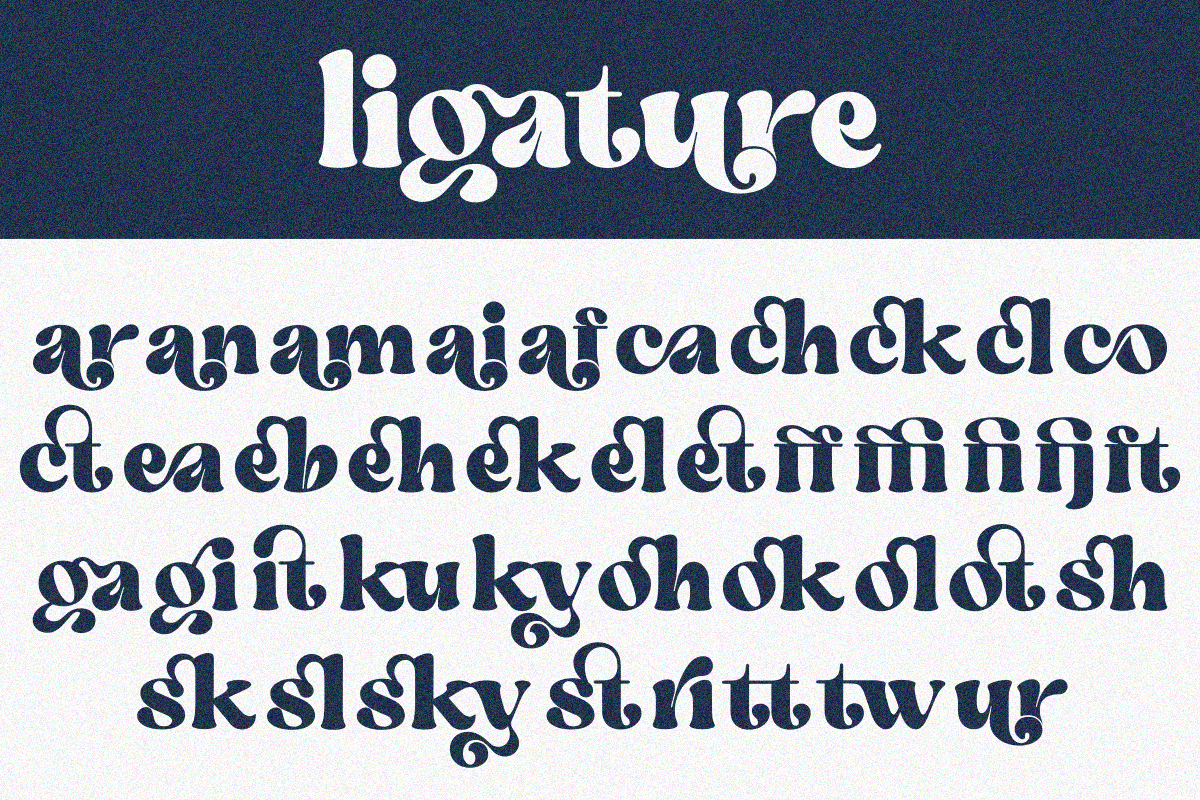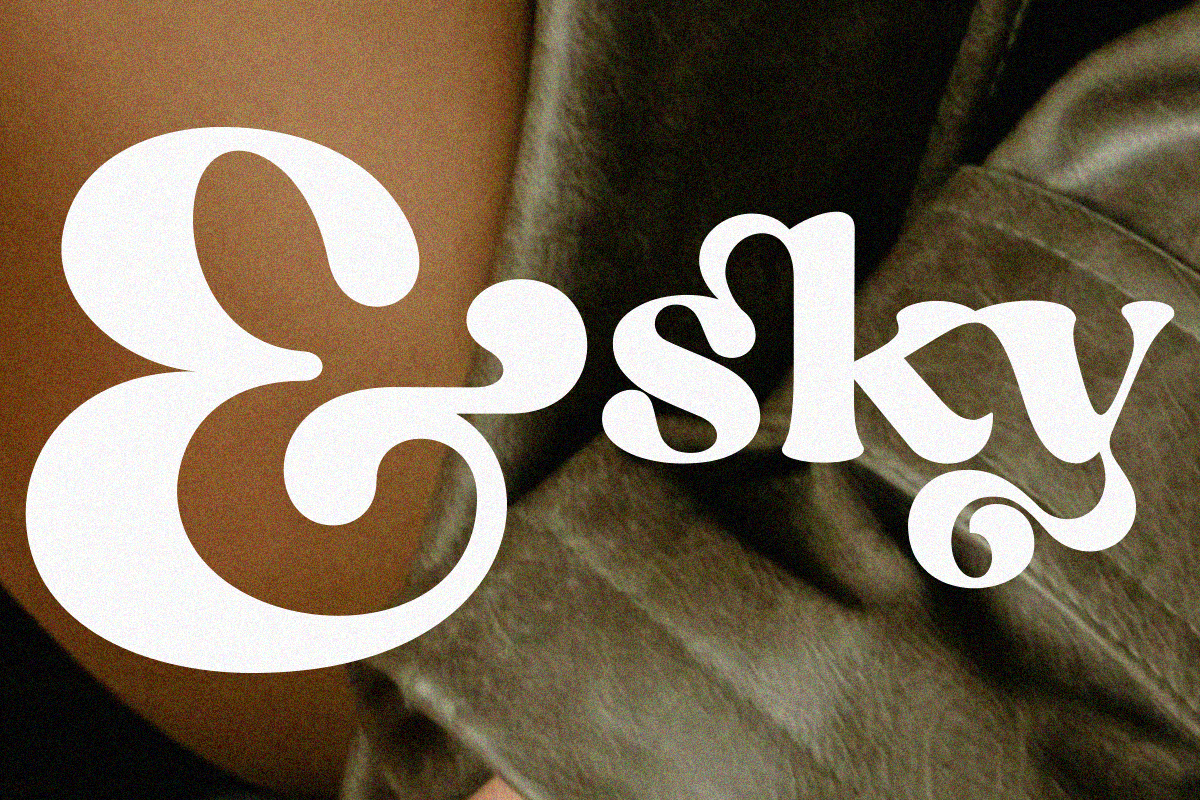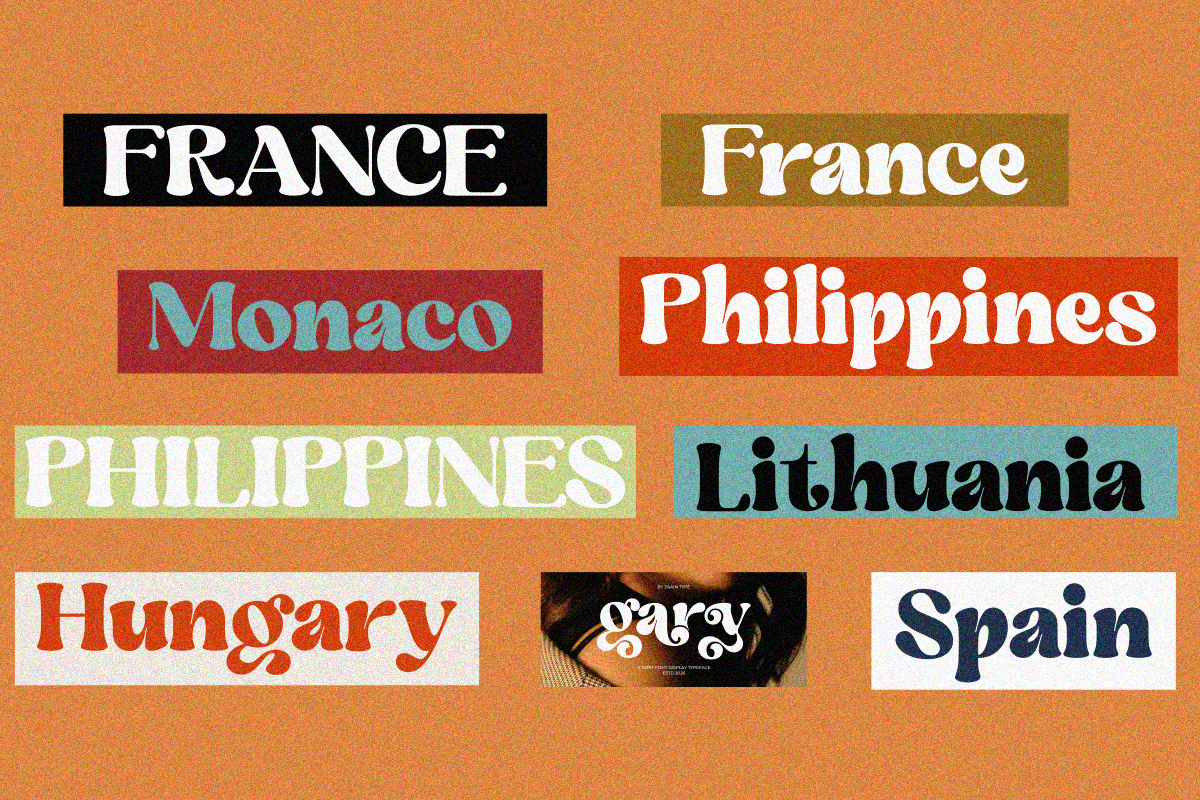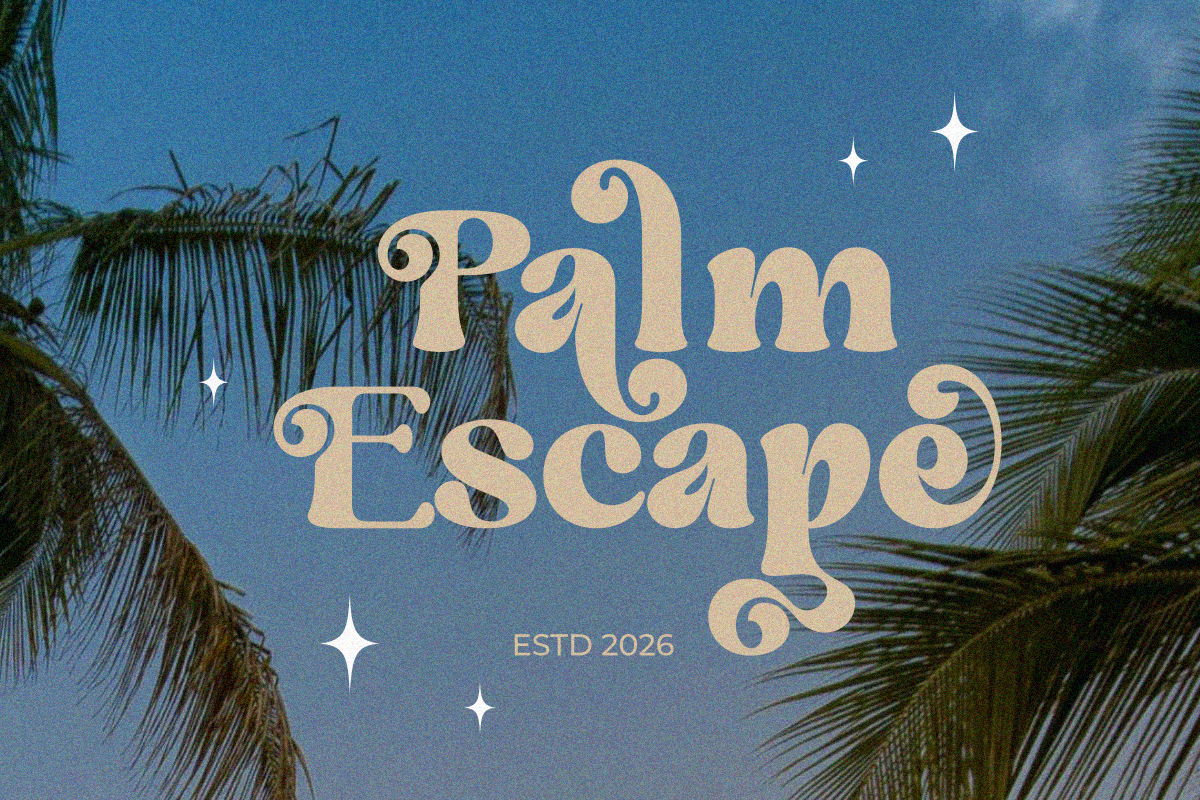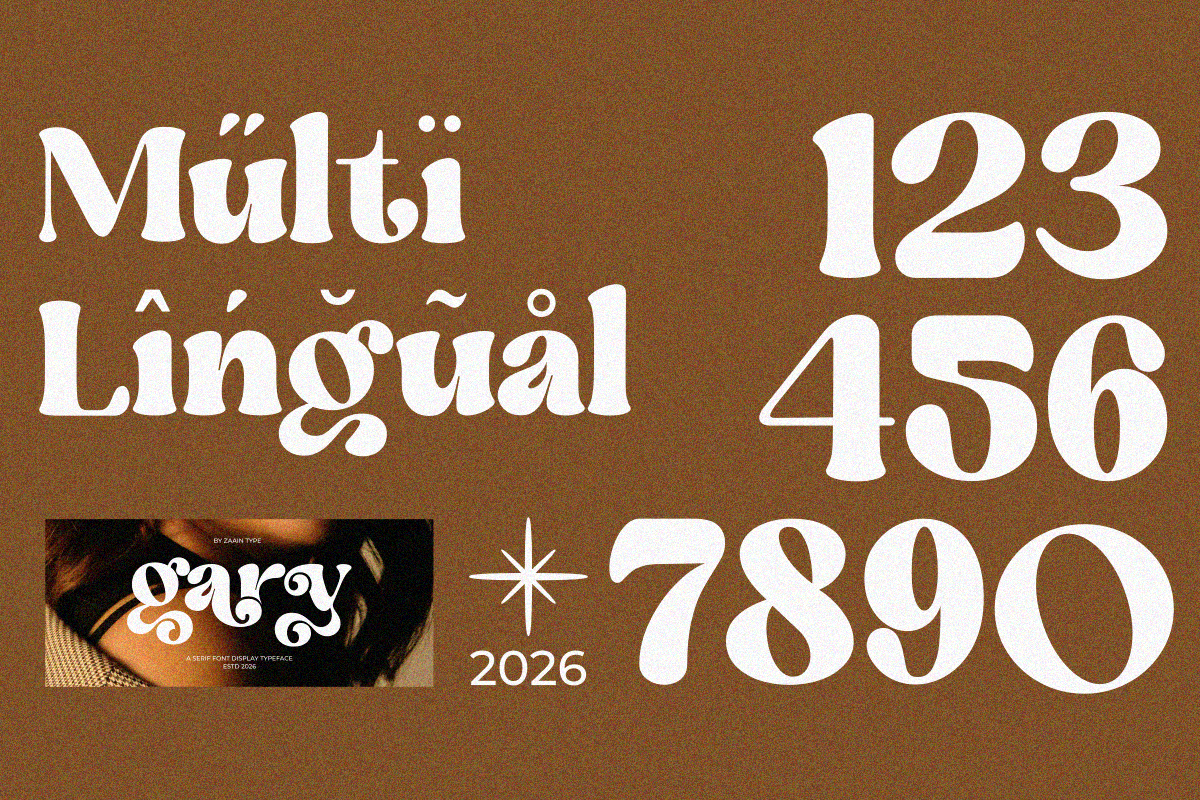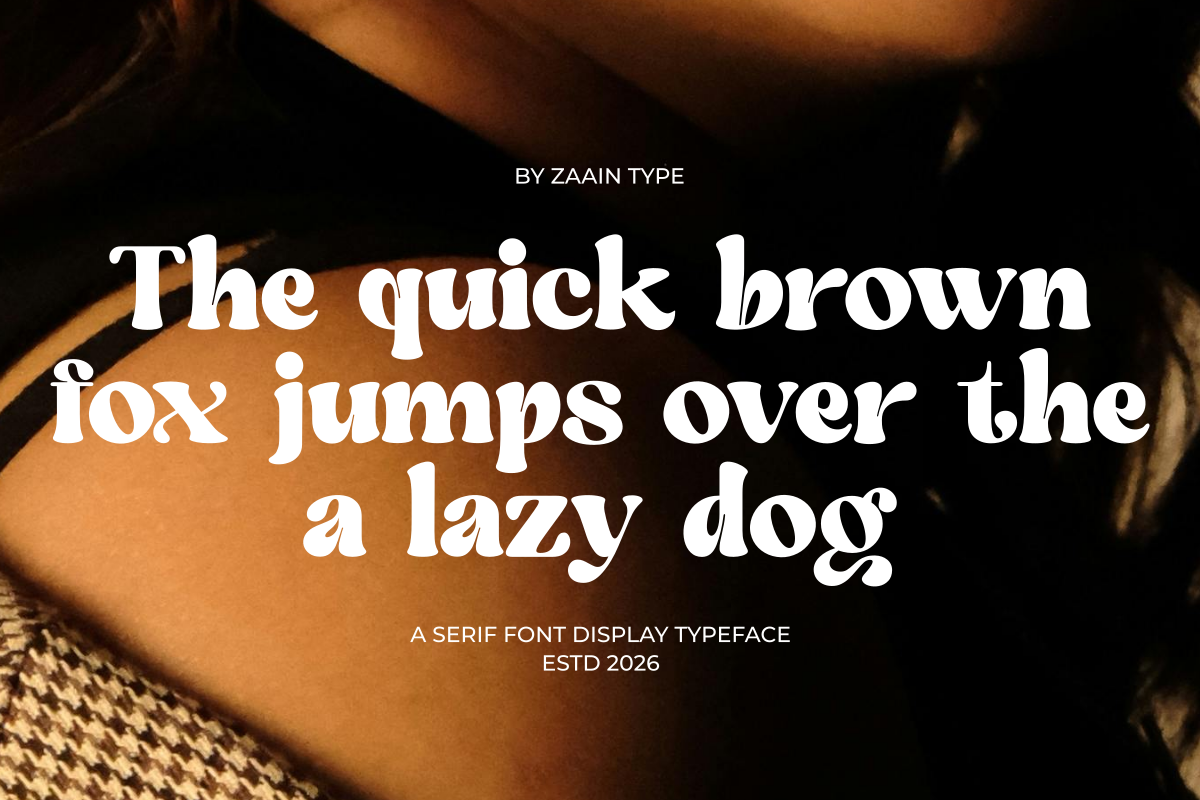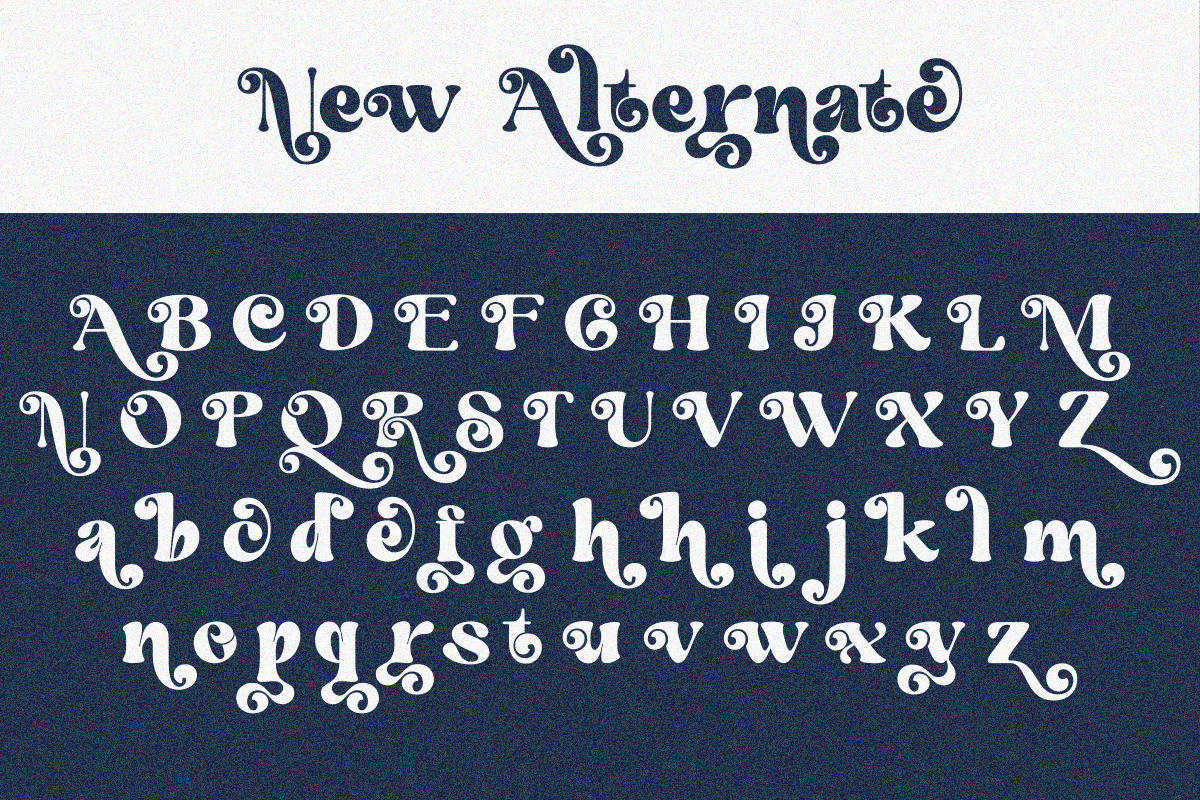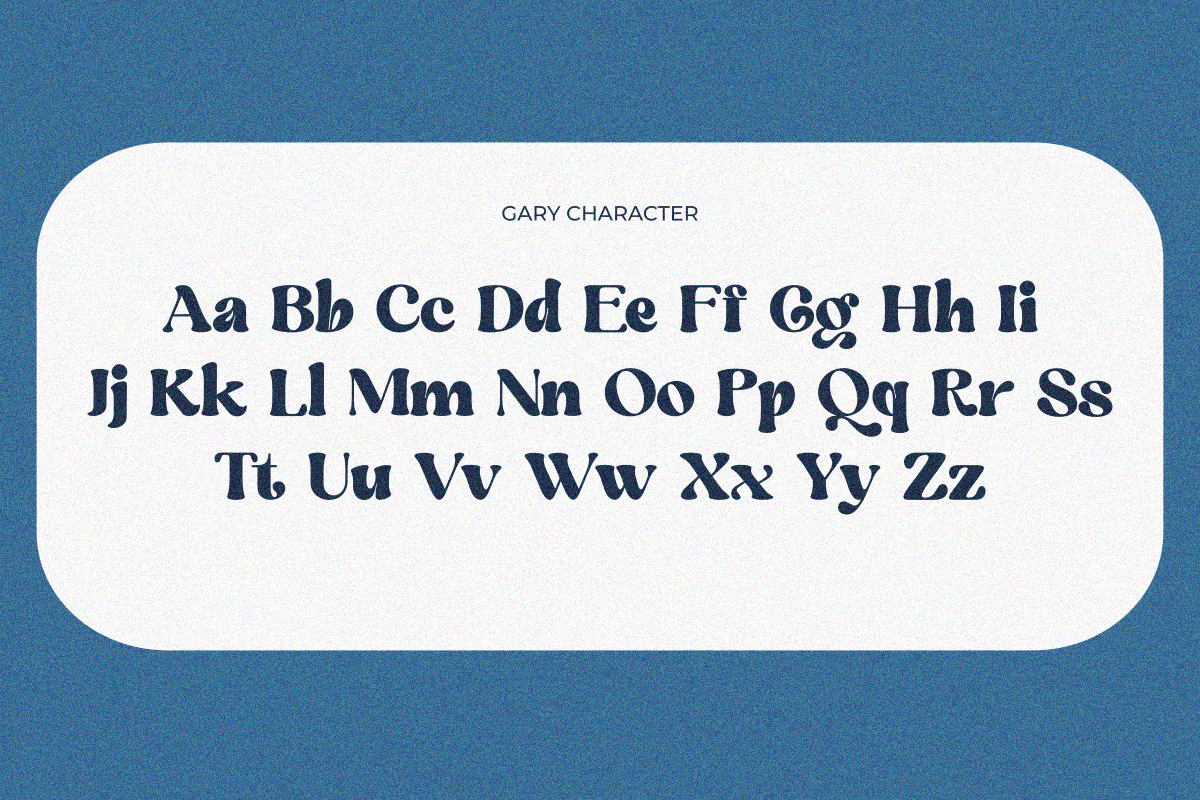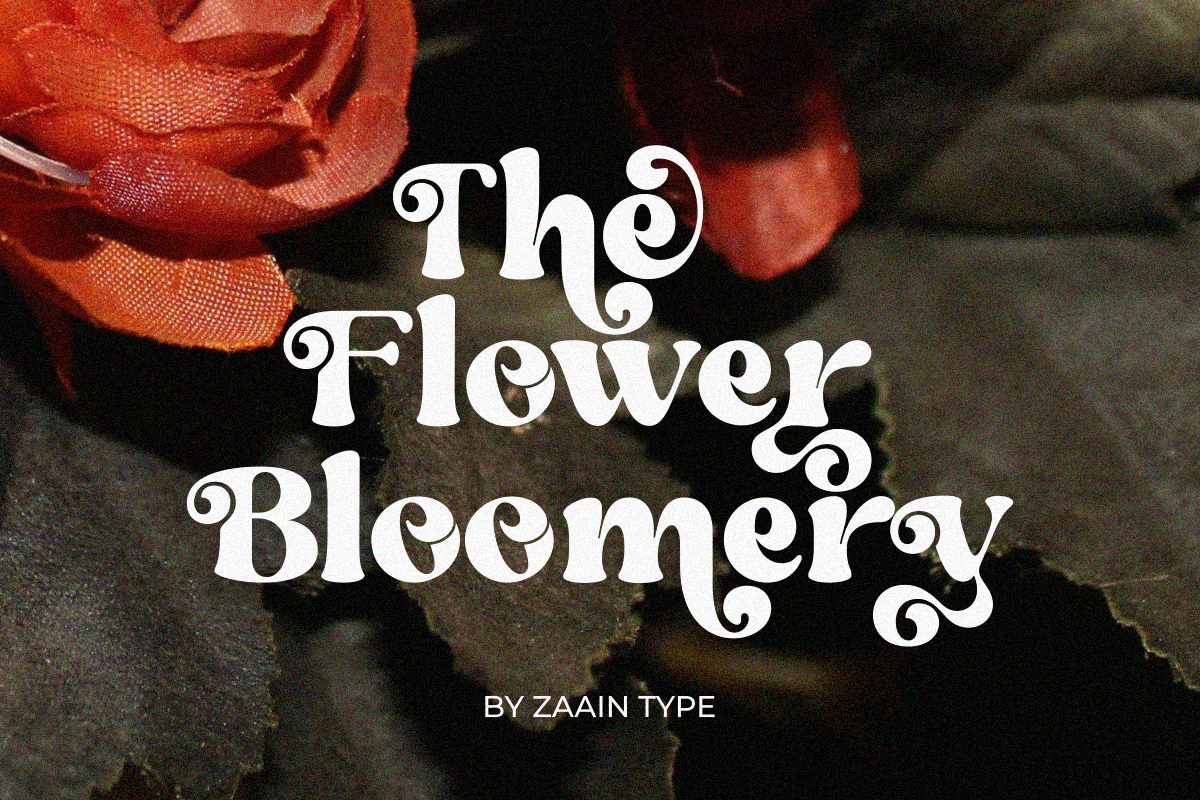
Gary
Gary is a modern serif typeface that blends timeless elegance with contemporary sophistication. Designed with refined curves, balanced proportions, and distinctive character details, Gary delivers a graceful presence across a wide range of design applications. From luxury branding and editorial layouts to packaging and invitations, this typeface brings a sense of confidence, style, and professionalism.
Its versatile letterforms create beautiful readability while maintaining a strong visual identity, making Gary an excellent choice for designers seeking a serif font that feels both classic and fresh. Whether used for striking headlines or refined body text, Gary adds a touch of elegance to every project